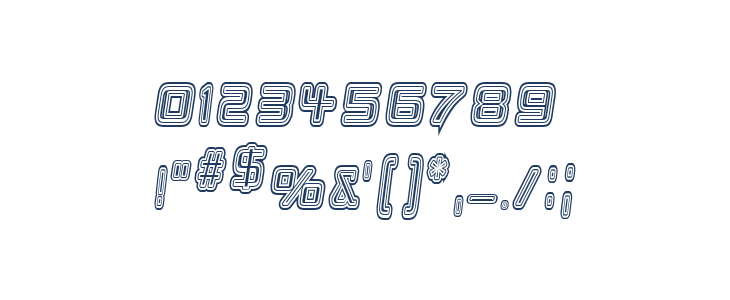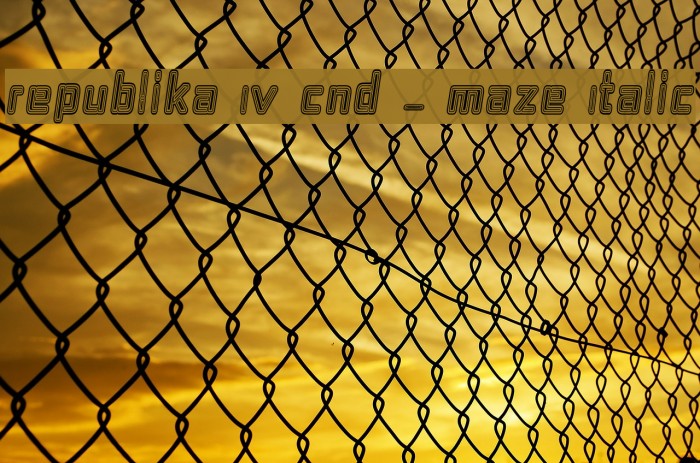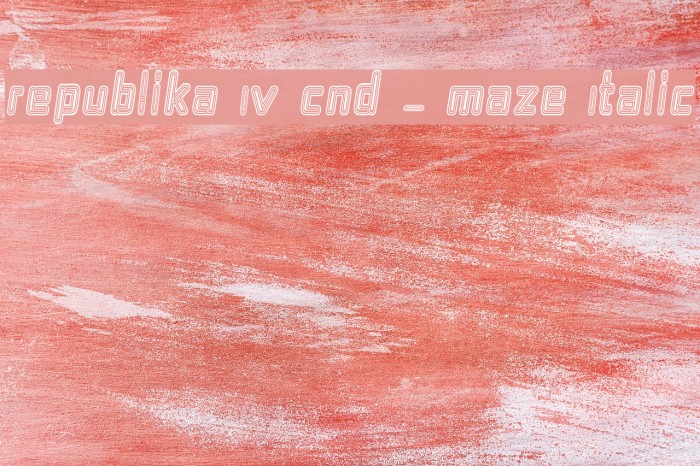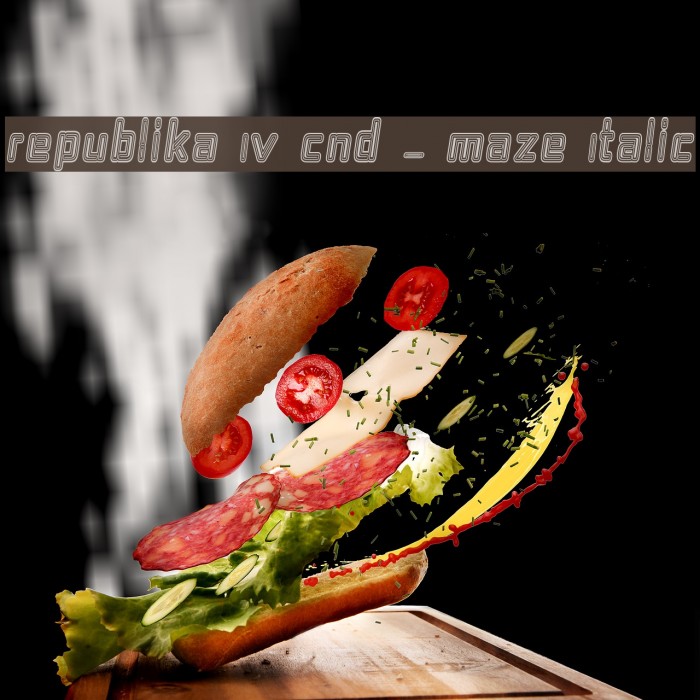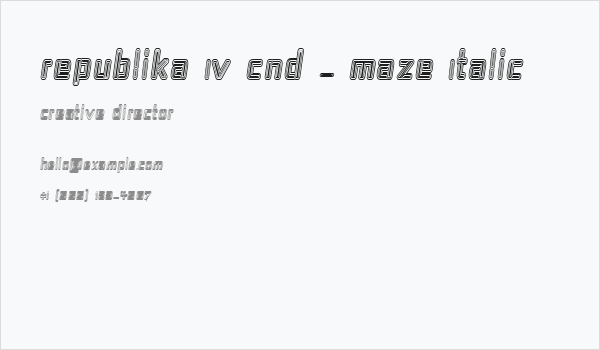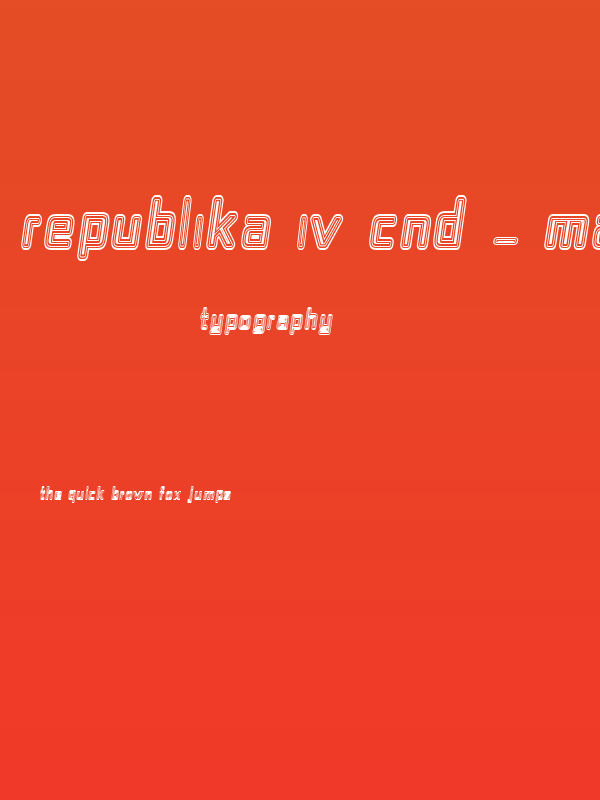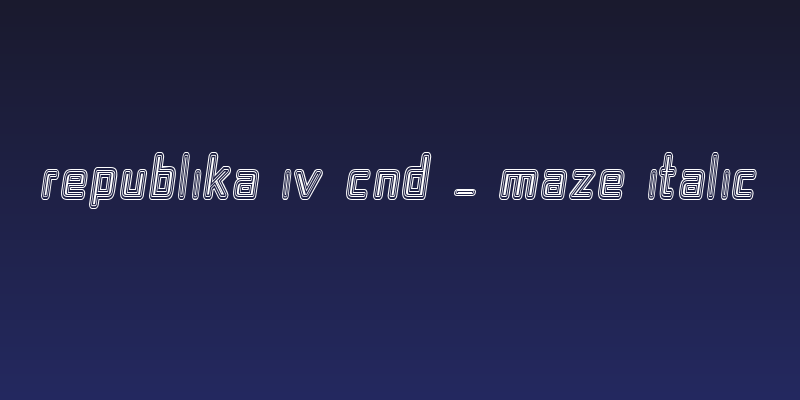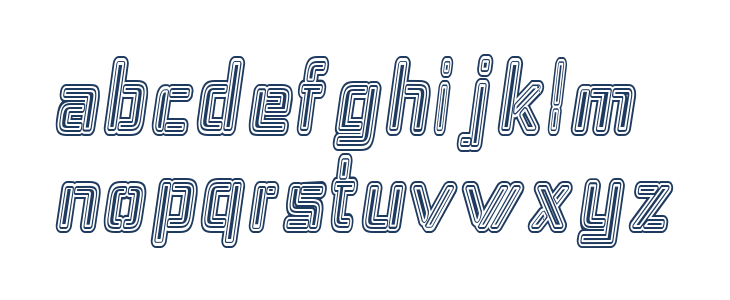
Republika IV Cnd - Maze Italic Font
Republika IV Cnd - Maze Italic Description
This font features a unique, maze-like design with a condensed structure and italicized form. Each character is outlined with multiple layers, creating a three-dimensional effect that is both intricate and eye-catching. The style is modern and decorative, making it ideal for projects that require a bold statement. The characters are evenly spaced, ensuring readability despite the complex design. The font's playful yet structured appearance makes it suitable for creative and artistic applications.
| Proposed Projects | Ideal for posters, album covers, branding, and any project needing a bold, artistic touch. |